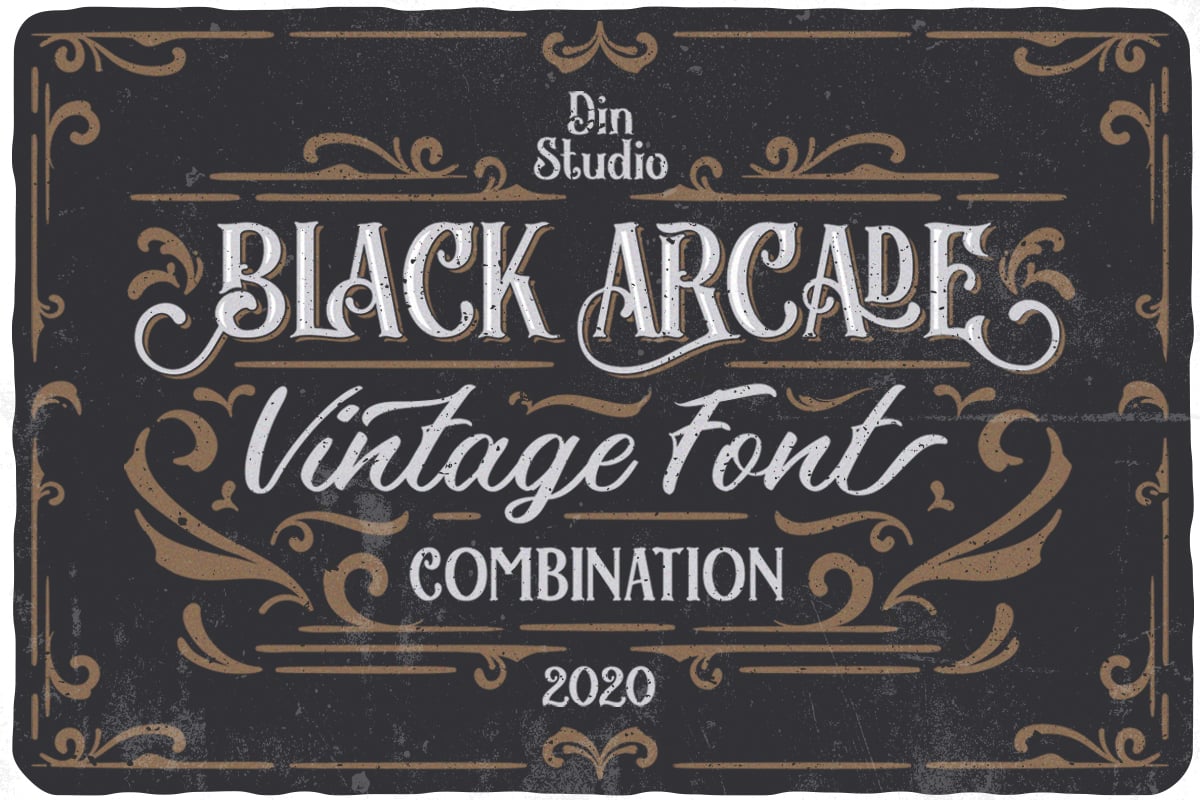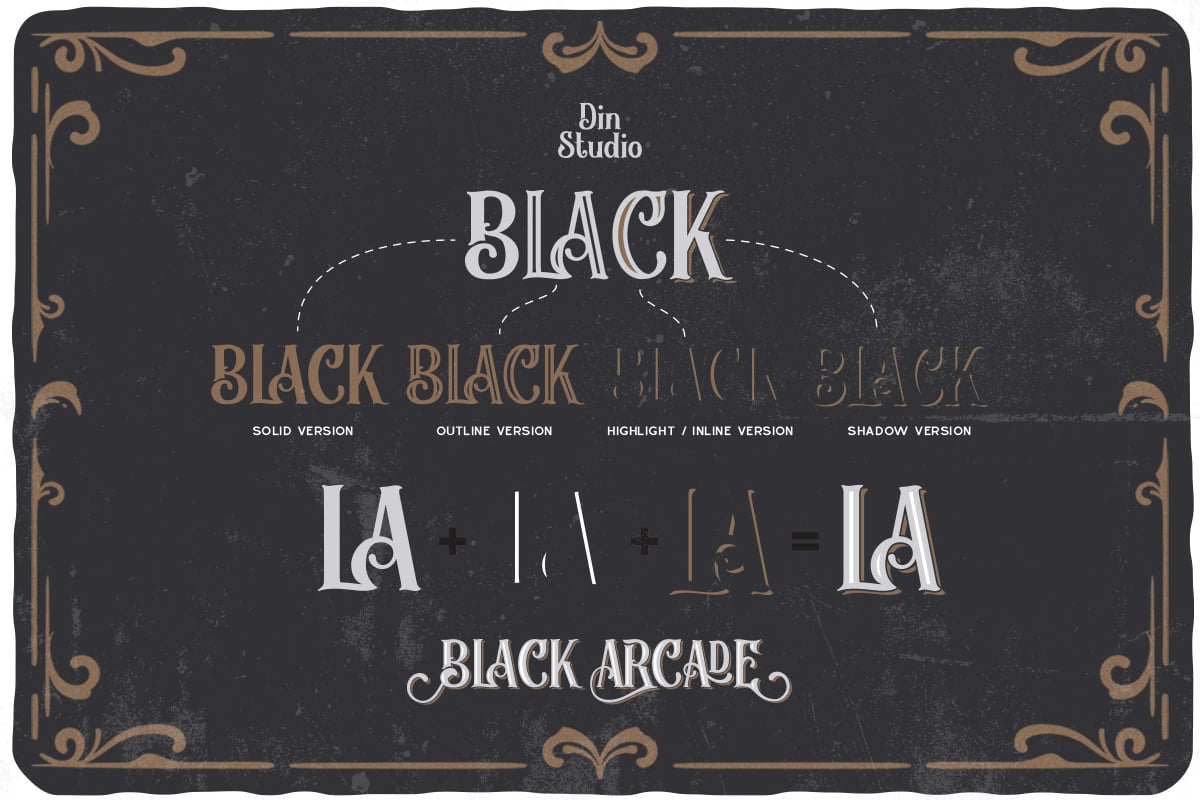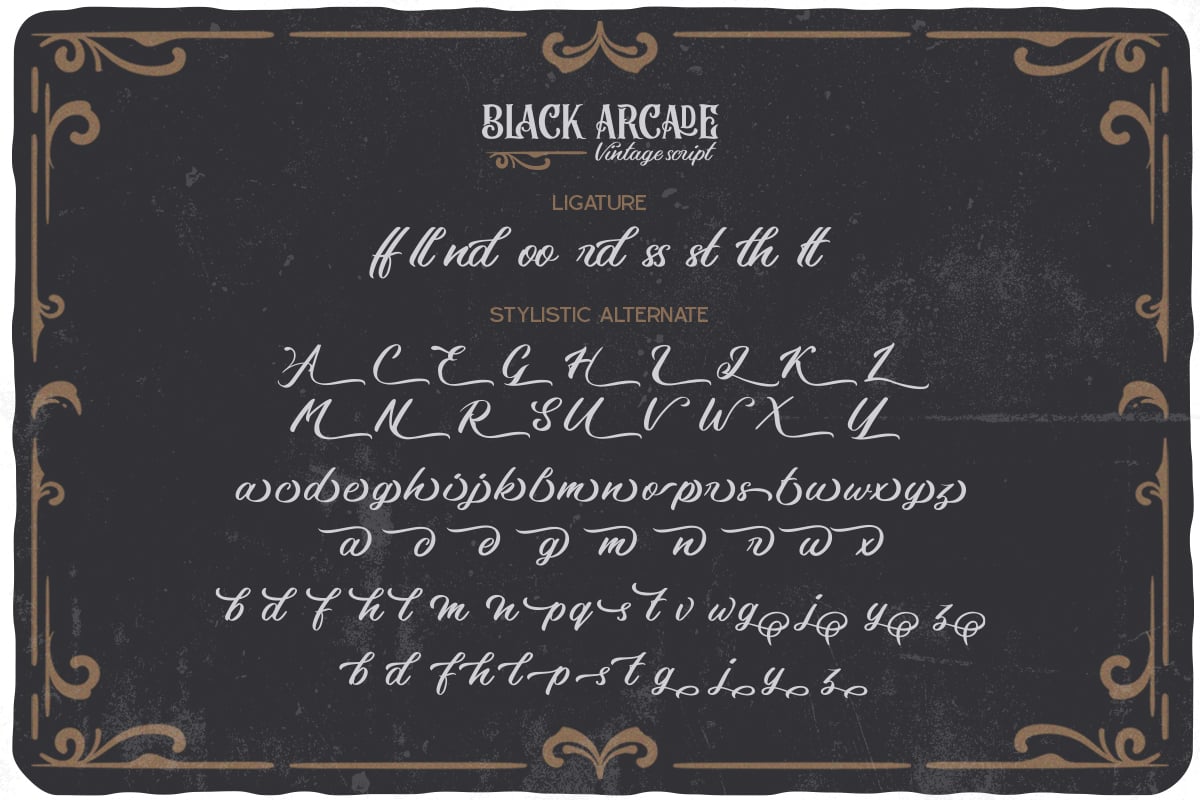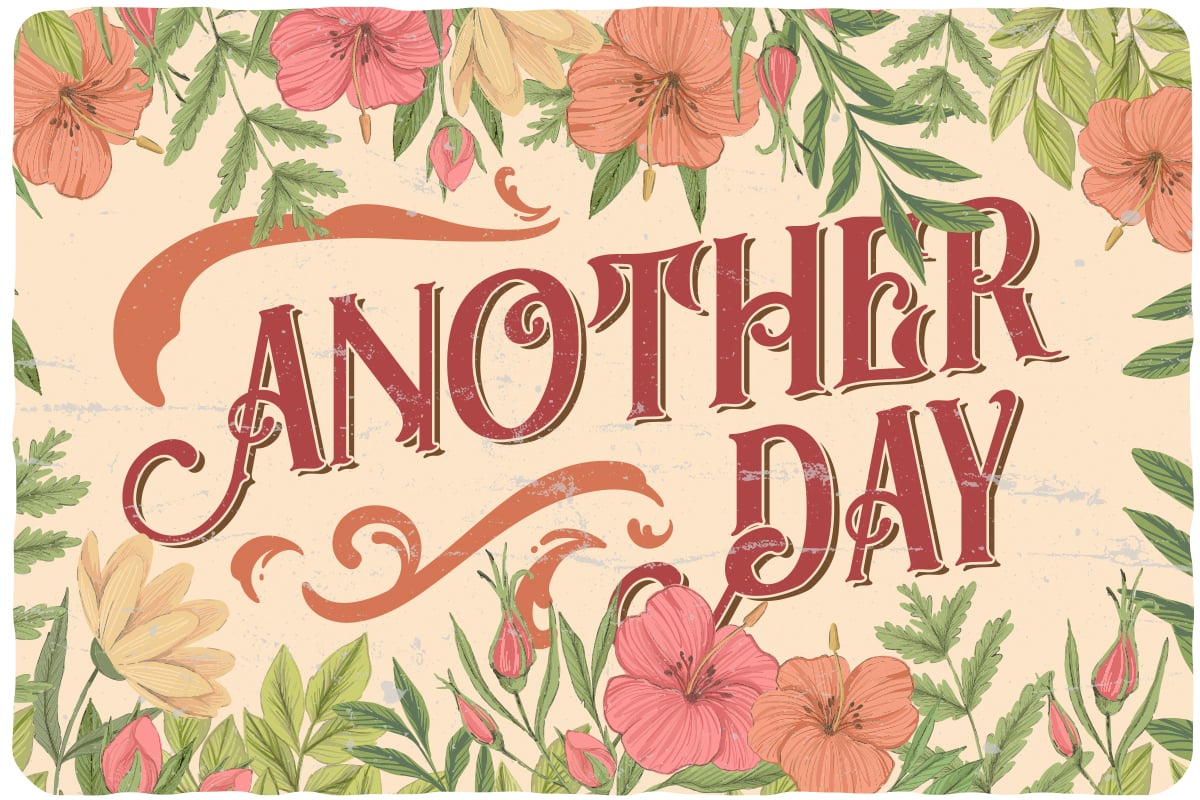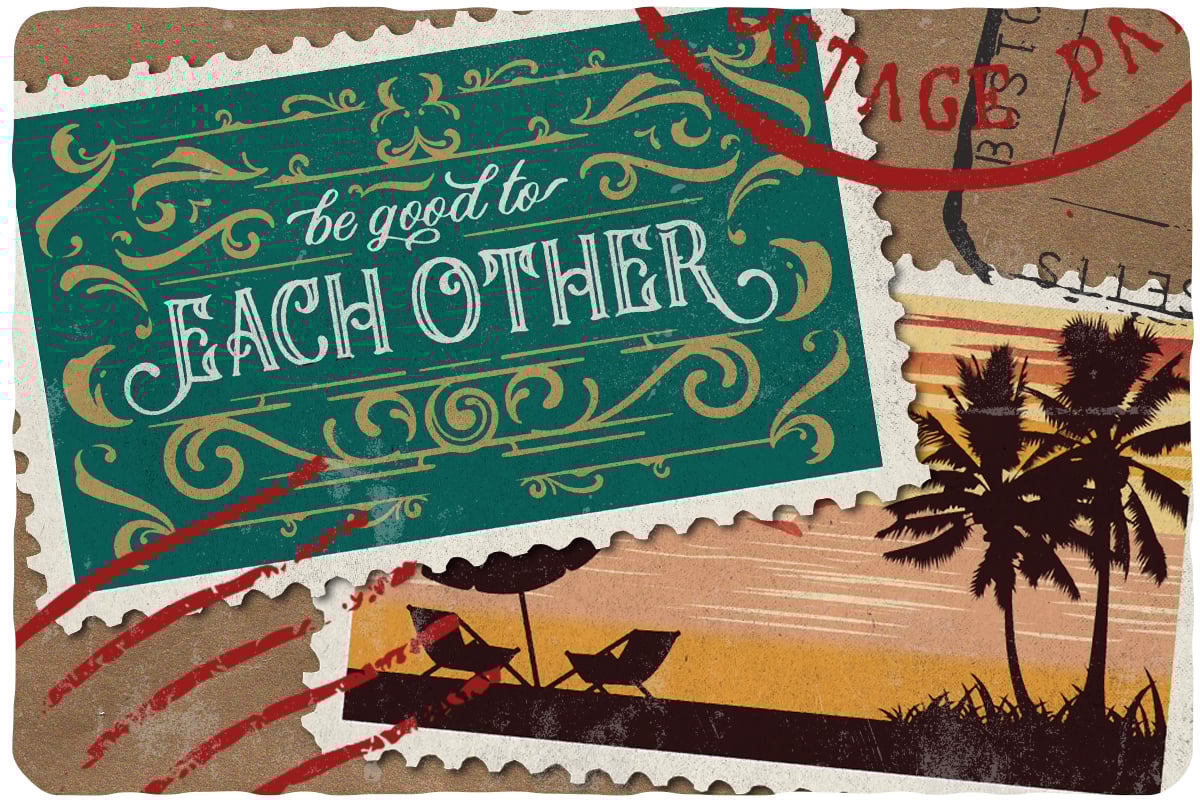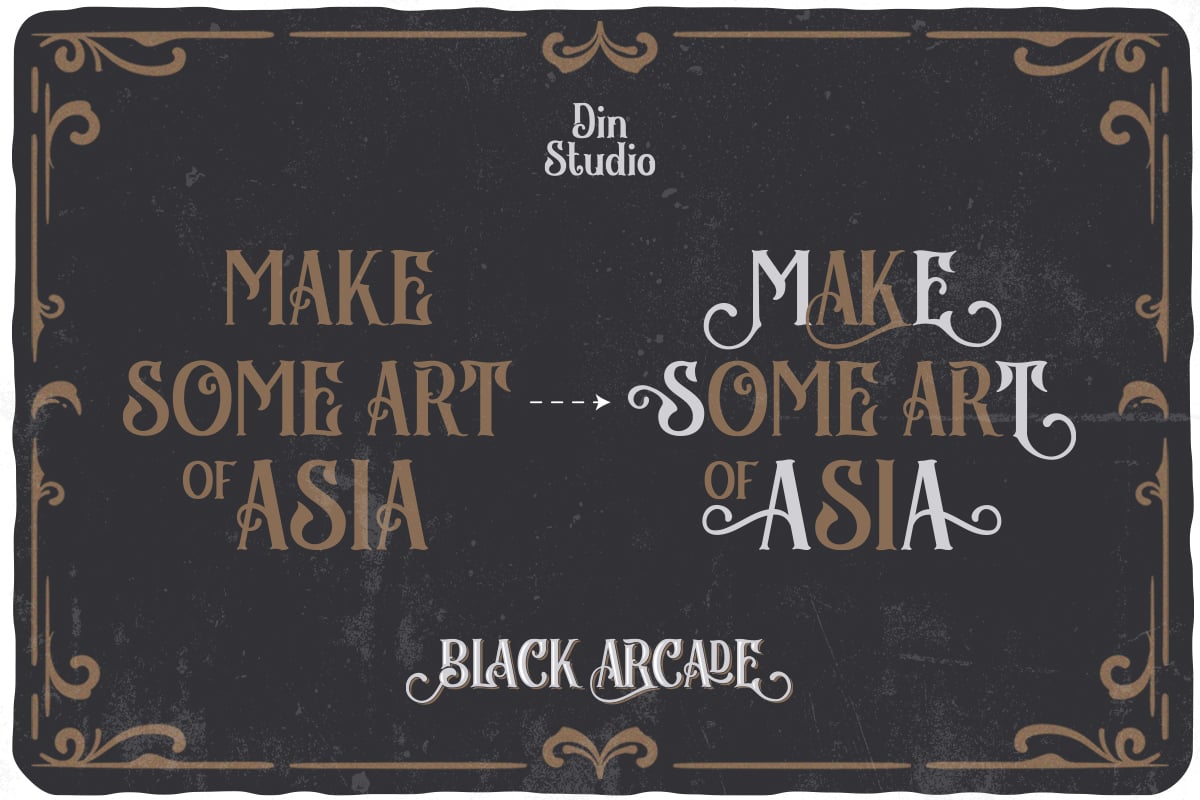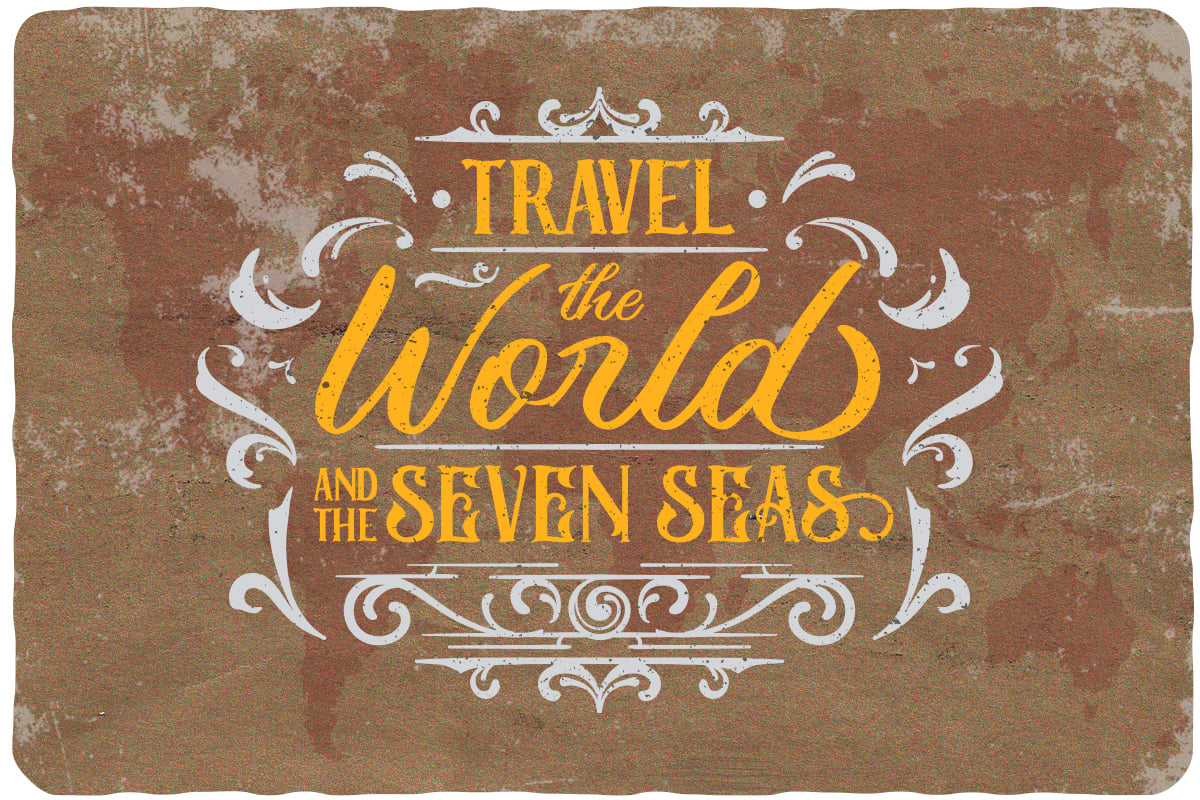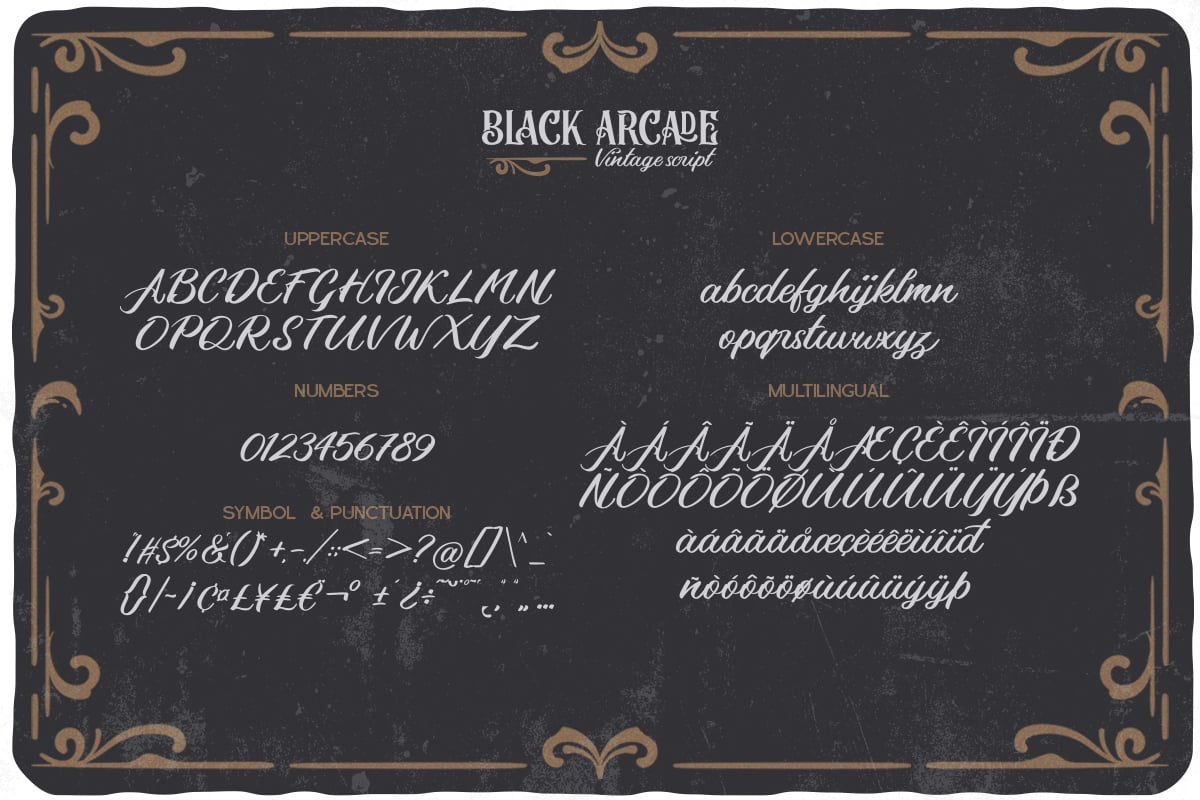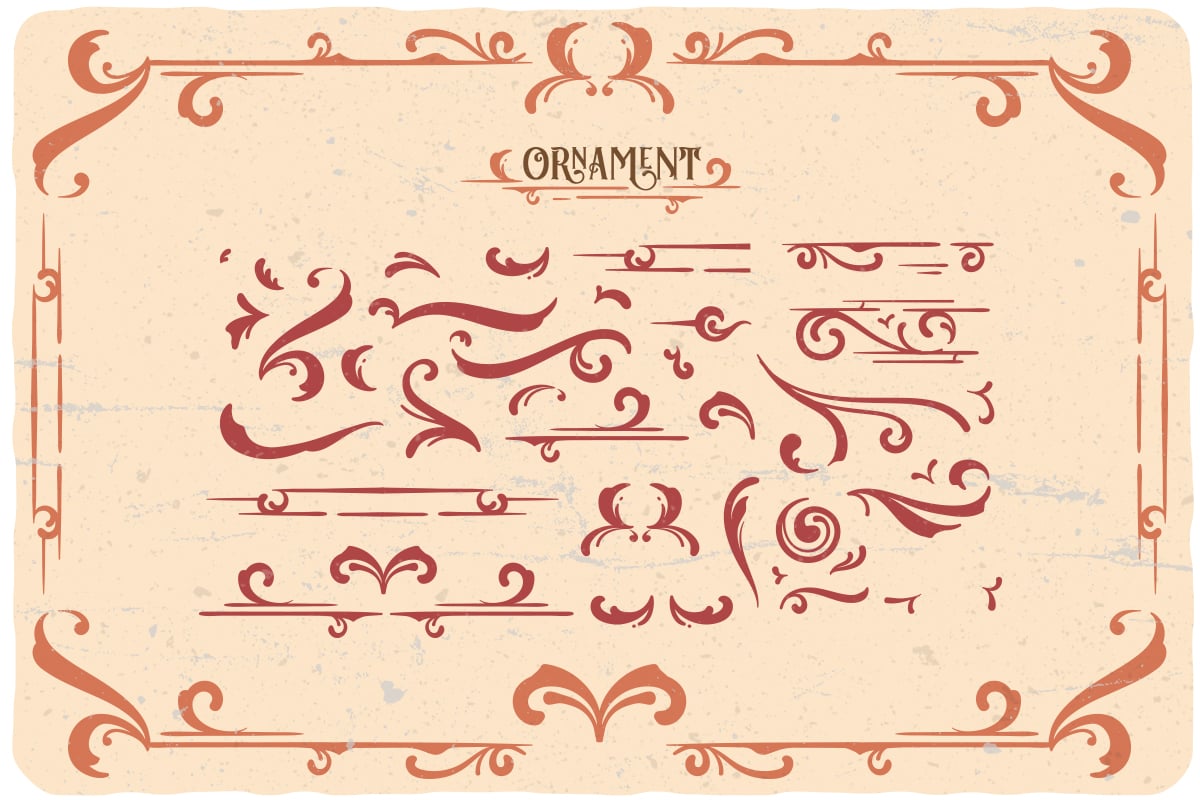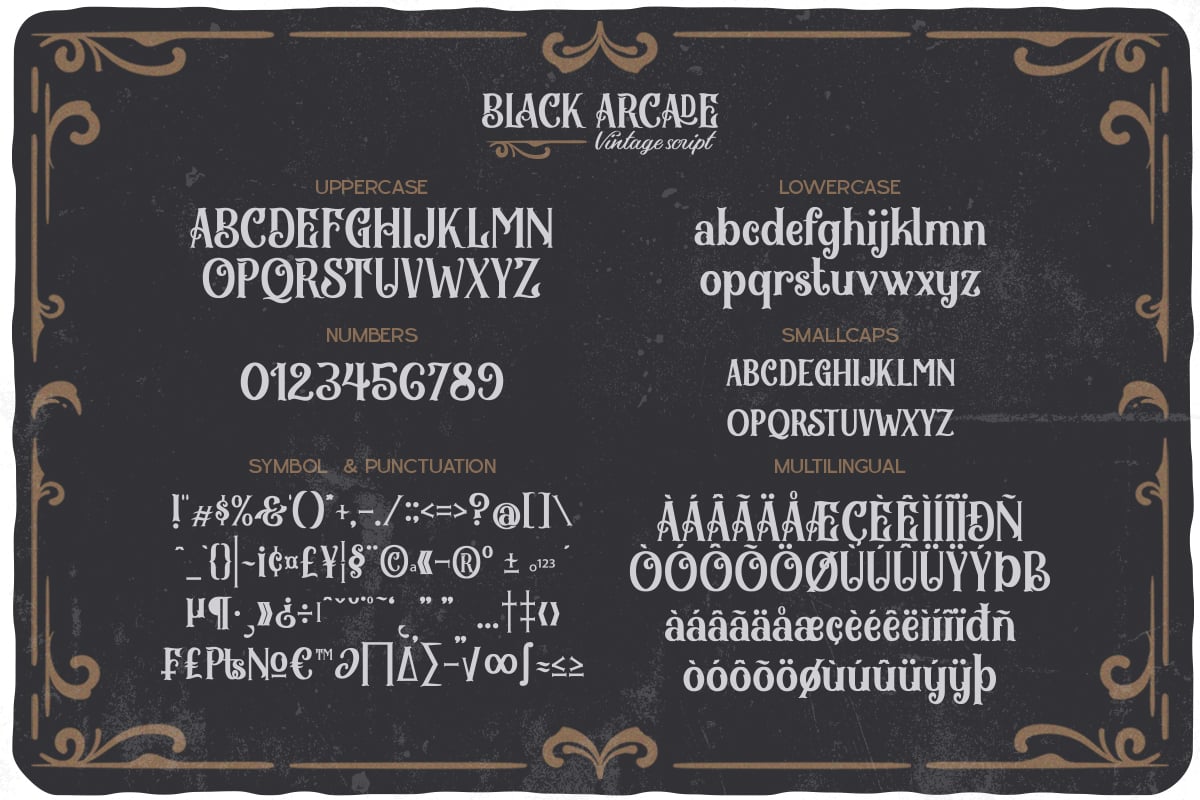
Black Arcade Font Pack (Vintage Font Combination)
Black Arcade Font Pack. The Amazing Font Pack for your design project
The pack containing :
- Accents (Multilingual characters)
- 10 Ligatures
- Display Font
- Script Font
- Ornament (EPS 10) The font is suitable for any design project.